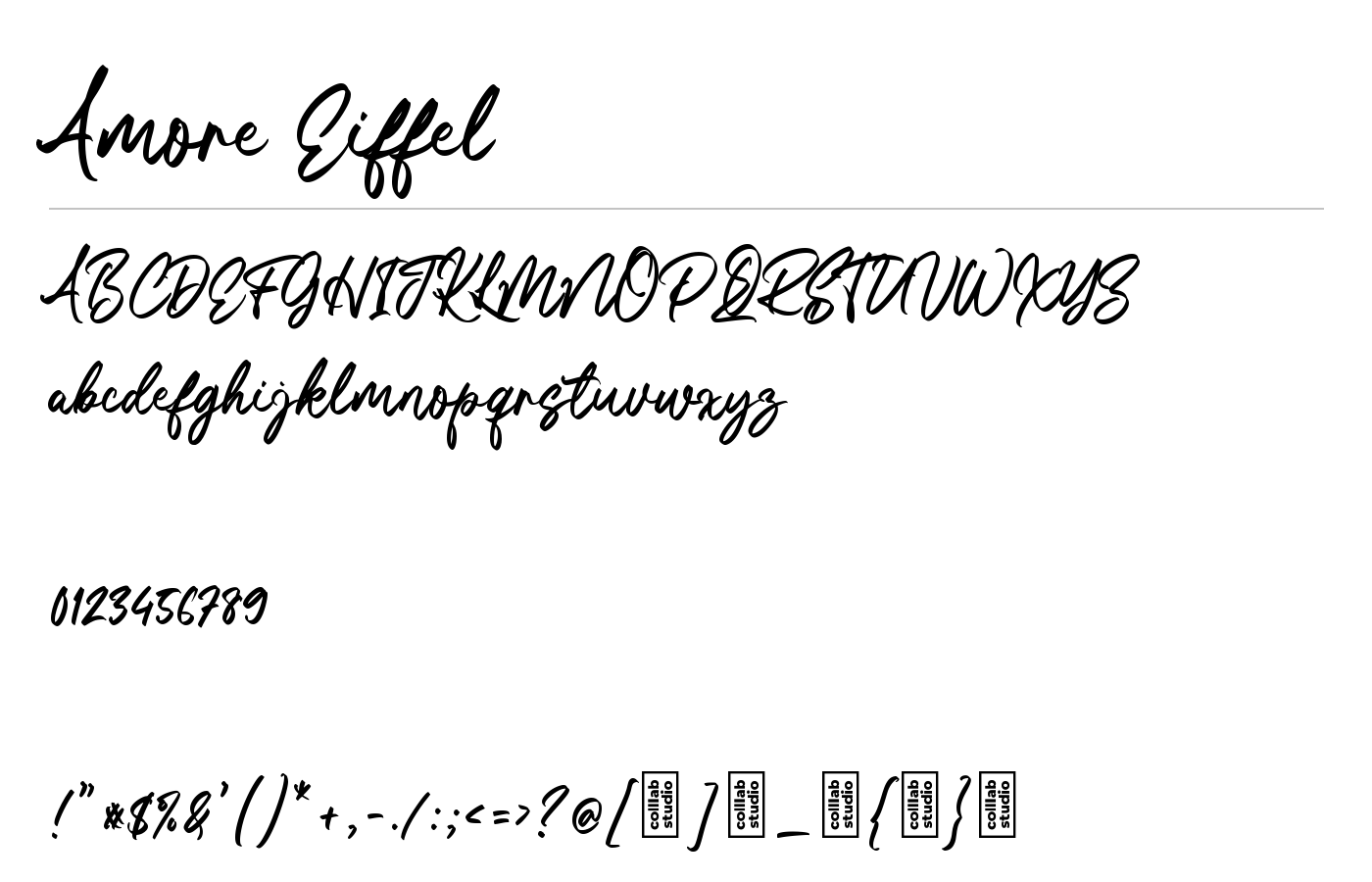
Amore Eiffel is an elegant and expressive script font that captures a natural, handwritten feel with smooth, flowing strokes and a lively rhythm. Its moderate weight and slightly condensed letterforms give it a refined yet approachable personality, making it ideal for romantic branding, invitations, and creative headlines. This font works beautifully where a touch of warmth and sophistication is needed, adding charm and personality to fashion, lifestyle, or artistic projects.
Amore Eiffel Font
About Amore Eiffel Font
| Font family | Amore Eiffel Font |
| Designer | Colllab Studio |